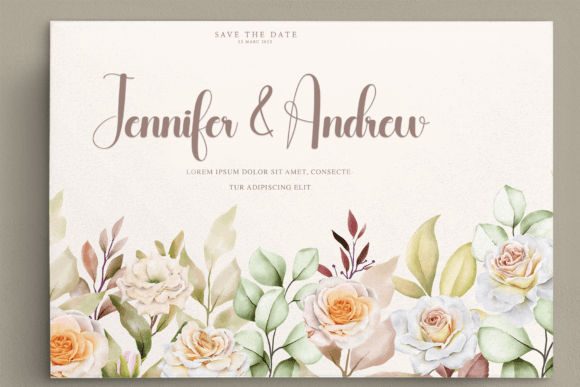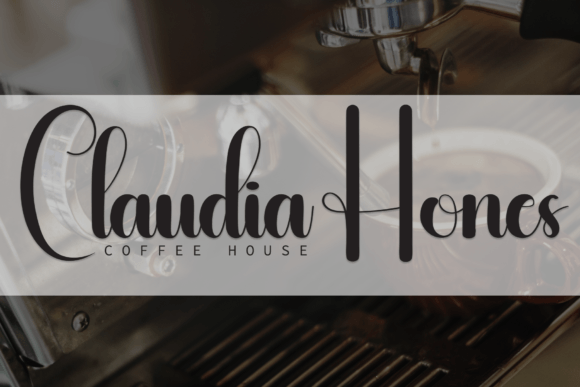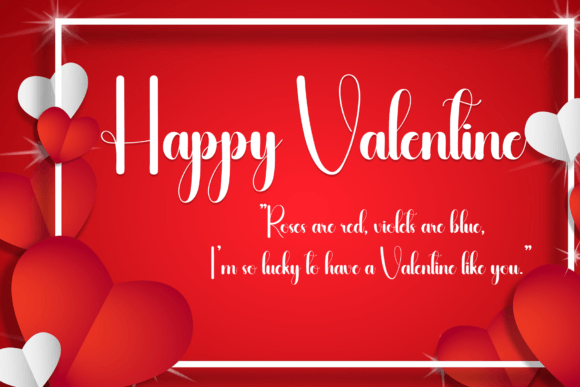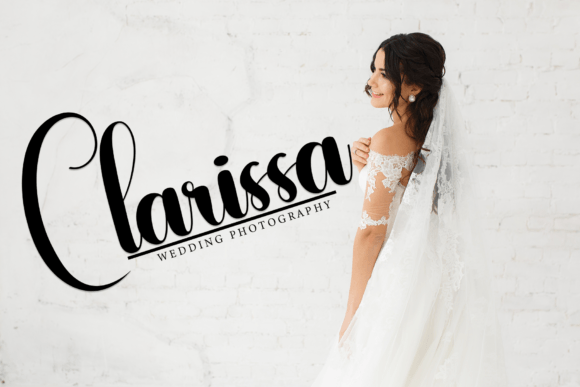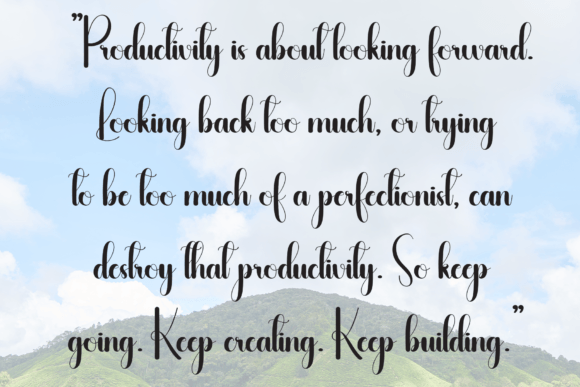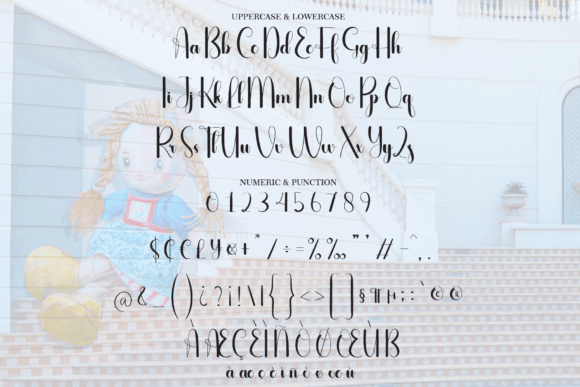
Dolly Font: The Sweet and Friendly Handwritten Font for Your Creative Projects
Are you looking for a font that can add a touch of warmth and personality to your designs? Look no further than Dolly Font, a sweet and friendly handwritten font that’s perfect for a variety of creative projects. In this article, we’ll take a closer look at Dolly Font, its features, and how you can use it to elevate your designs.
What is Dolly Font?
Dolly Font is a beautiful, handwritten font that’s designed to bring a sense of freshness and neatness to your designs. It’s a versatile font that’s ideal for writing wedding invitations, cards, or any other design that might need a fun touch. With its sweet and friendly vibe, Dolly Font is sure to capture the hearts of your audience and make your designs stand out.
Features of Dolly Font
So, what makes Dolly Font so special? Here are some of its key features:
- Handwritten style: Dolly Font has a beautiful, handwritten style that’s perfect for adding a personal touch to your designs.
- Fresh and neat: This font is designed to be fresh and neat, making it perfect for a variety of creative projects.
- Sweet and friendly vibe: Dolly Font has a sweet and friendly vibe that’s sure to capture the hearts of your audience.
- Versatile: This font is versatile and can be used for a variety of design projects, from wedding invitations to cards and more.
Uses of Dolly Font
Dolly Font is a versatile font that can be used for a variety of creative projects. Here are some of the ways you can use Dolly Font:
- Wedding invitations: Dolly Font is perfect for writing beautiful wedding invitations that will make your guests feel special.
- Cards: This font is great for creating fun and personalized cards for special occasions, such as birthdays, anniversaries, and more.
- Social media graphics: Dolly Font can be used to create engaging social media graphics that will help you connect with your audience.
- Logos and branding: This font can be used to create beautiful logos and branding materials that will help you establish your brand identity.
Tips for Using Dolly Font
Here are some tips for using Dolly Font effectively:
- Pair it with other fonts: Dolly Font can be paired with other fonts to create a unique and interesting design.
- Use it for headings and titles: This font is perfect for headings and titles, as it adds a touch of personality and whimsy to your design.
- Experiment with colors: Dolly Font looks great in a variety of colors, so don’t be afraid to experiment and find the perfect color for your design.
- What is Dolly Font? Dolly Font is a sweet and friendly handwritten font that’s perfect for adding a touch of warmth and personality to your designs.